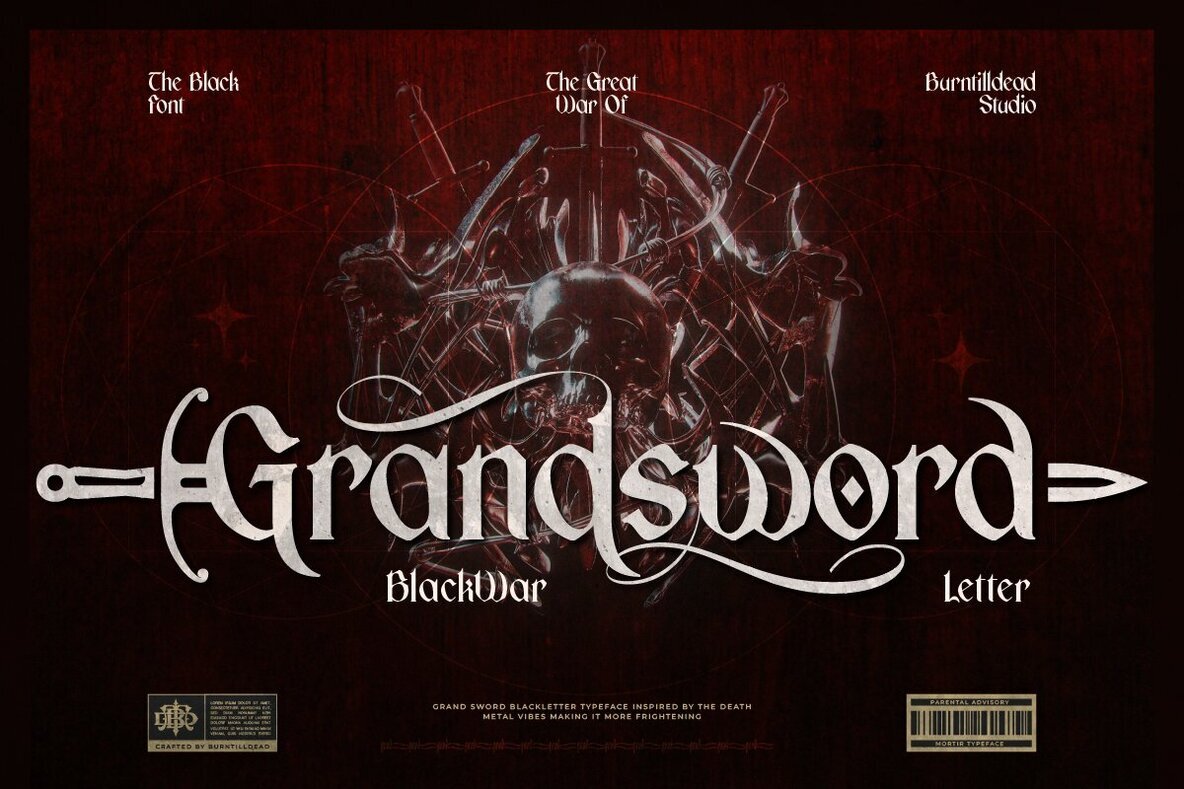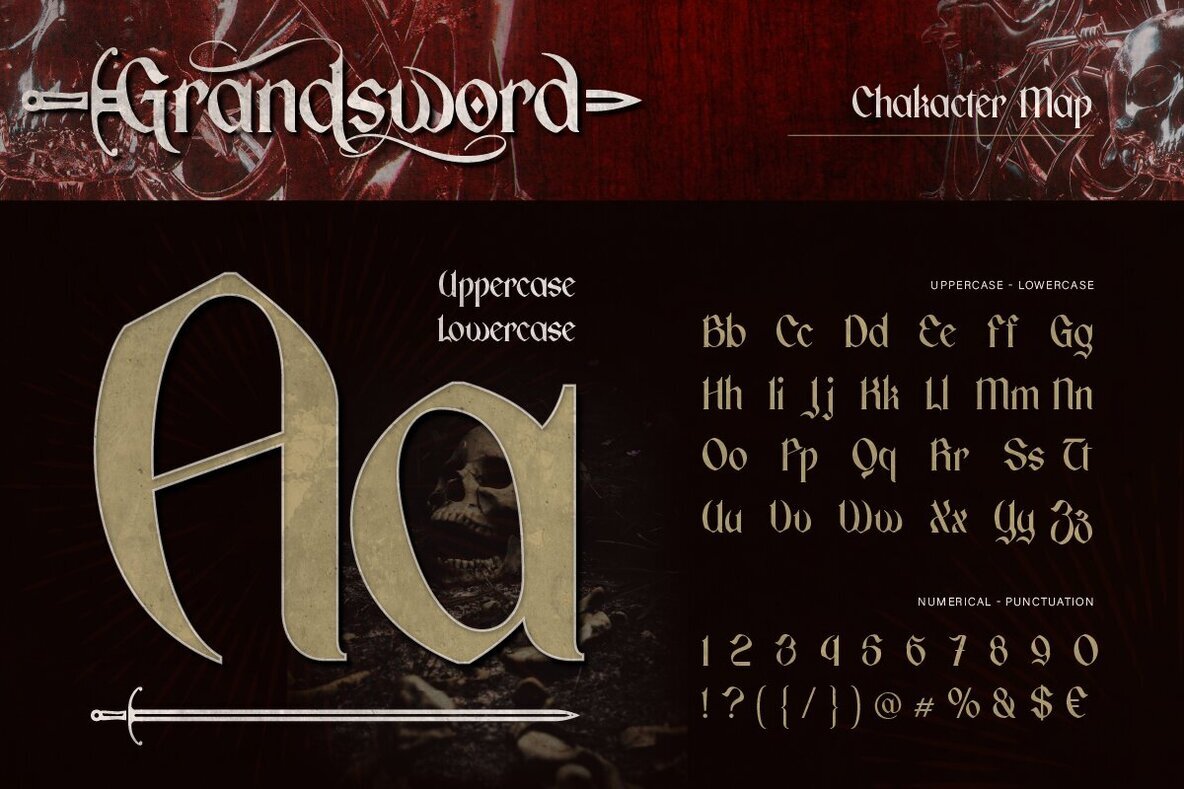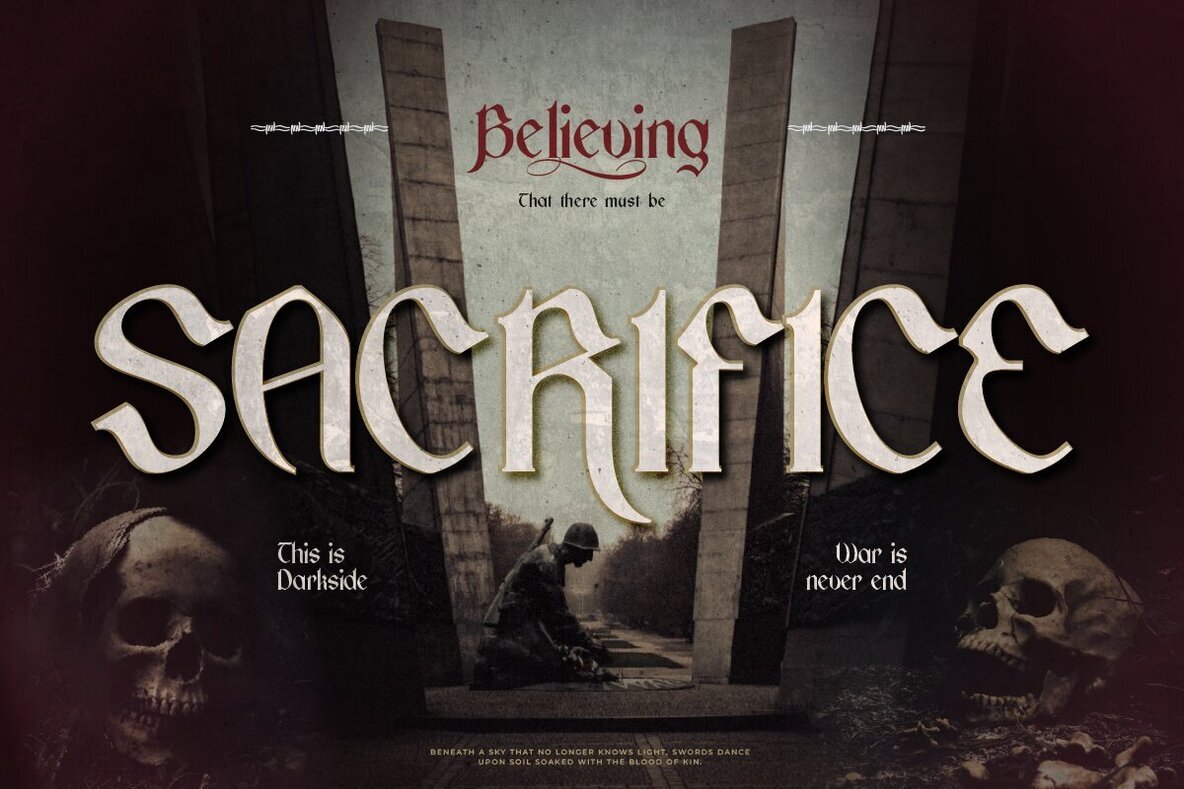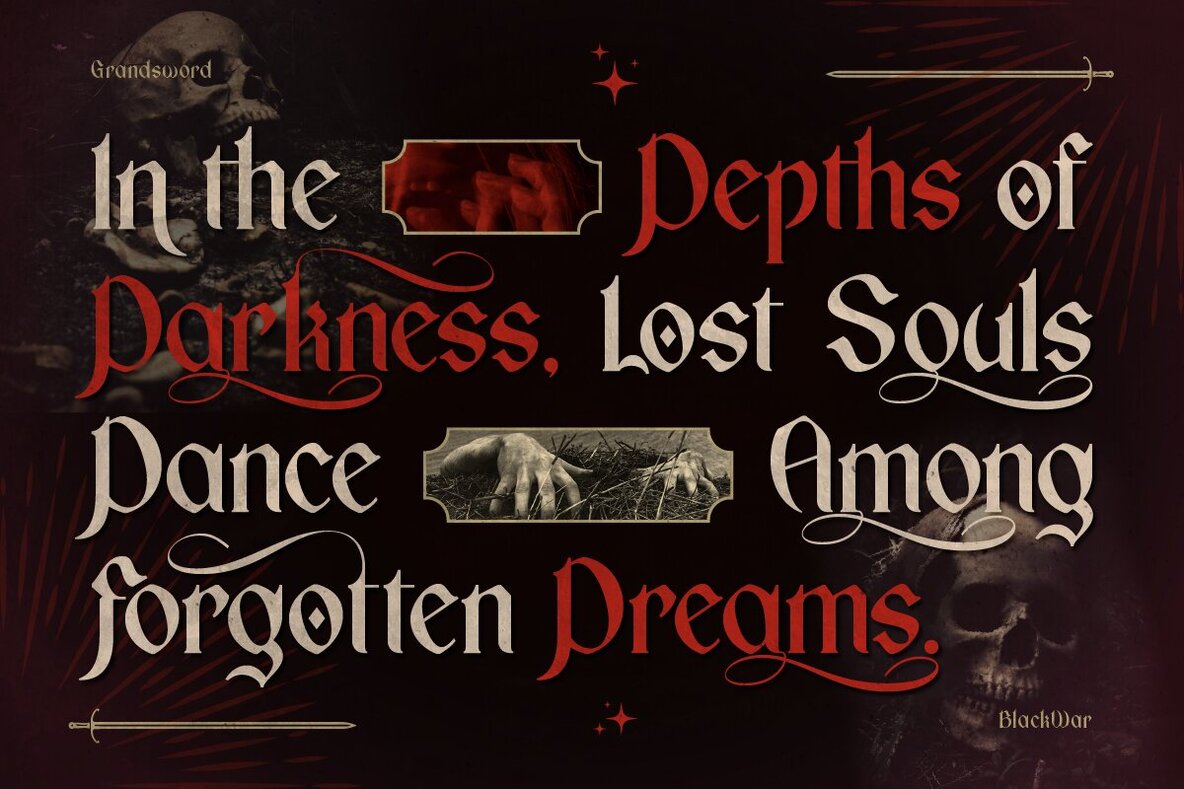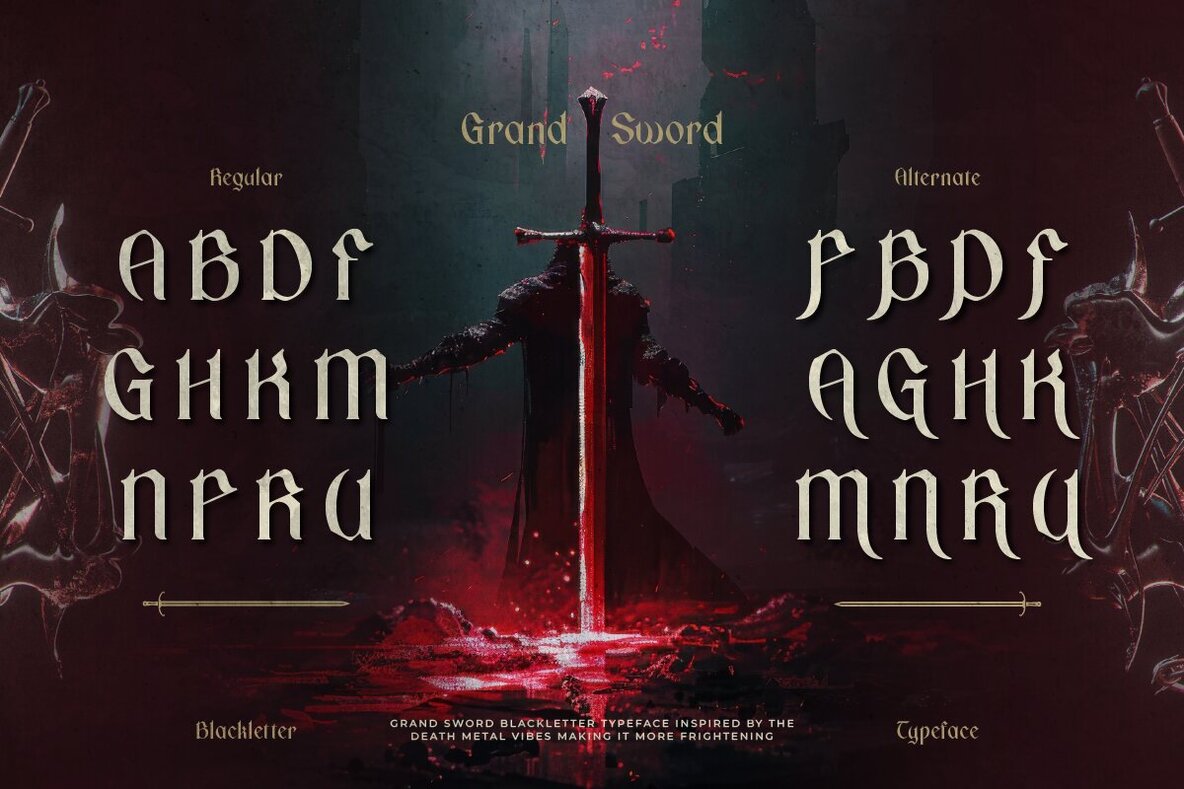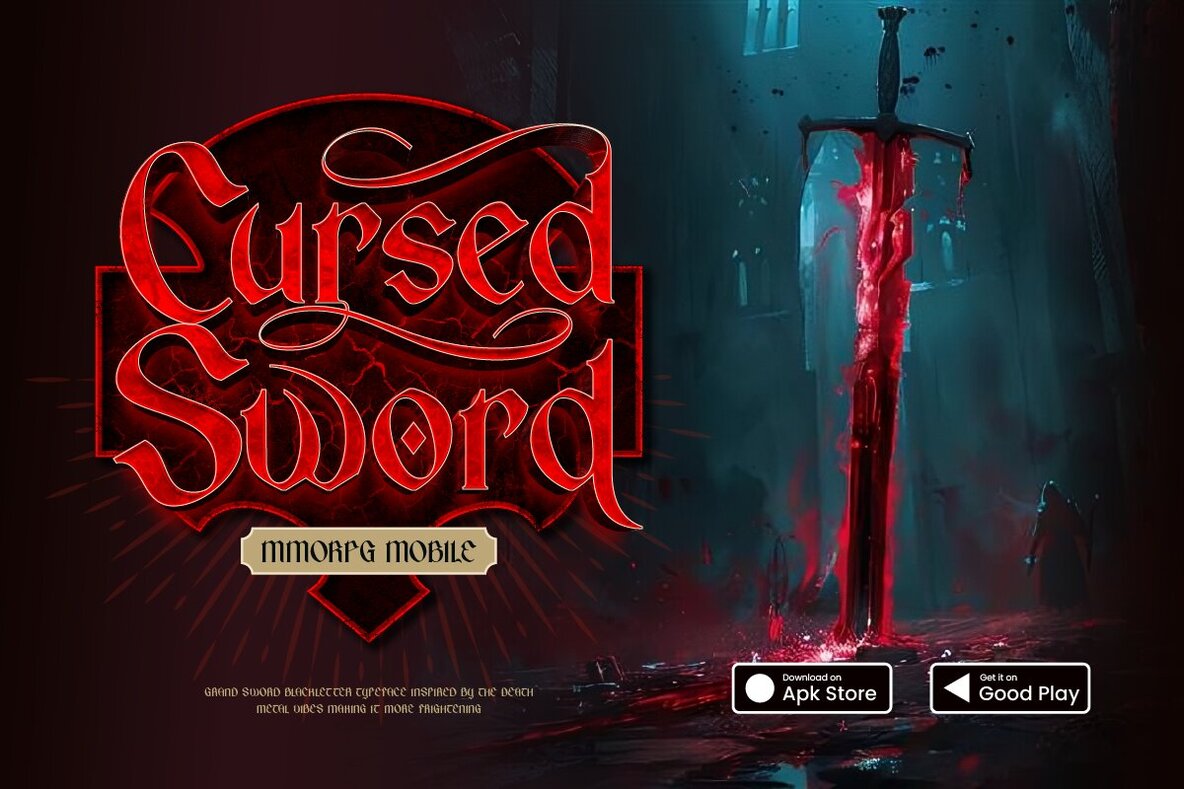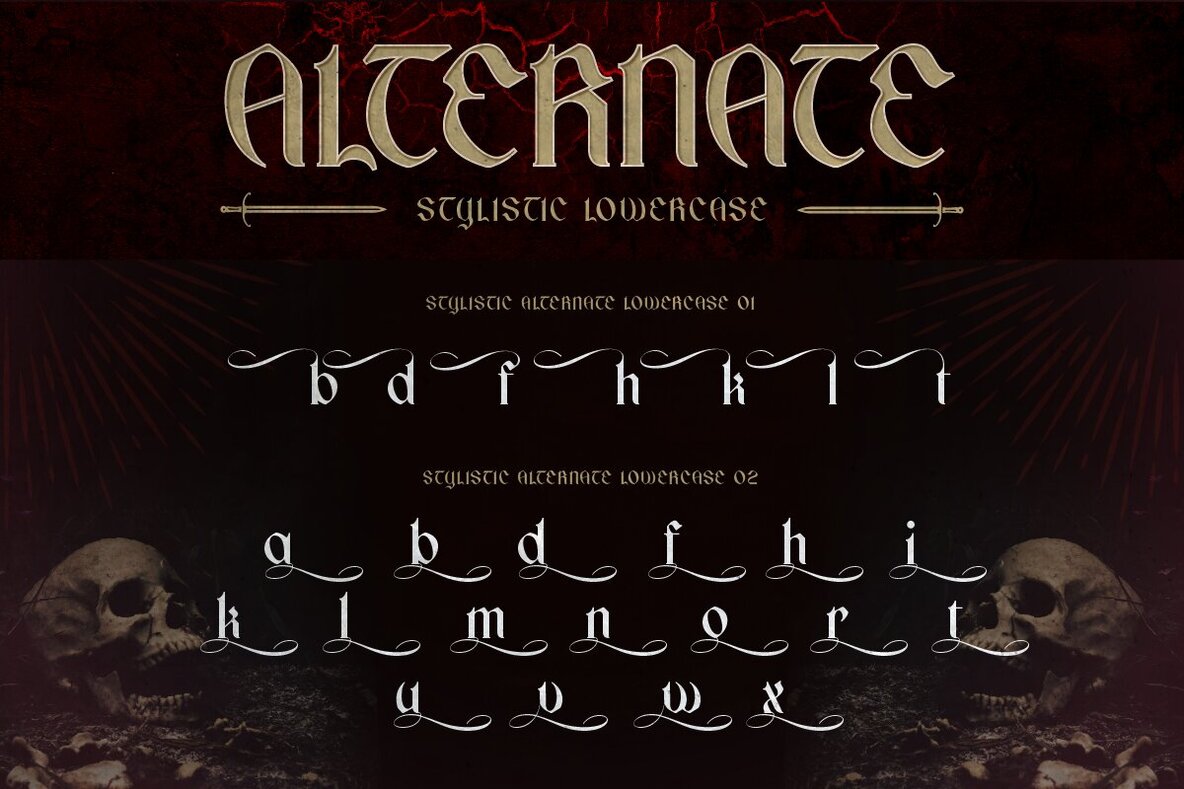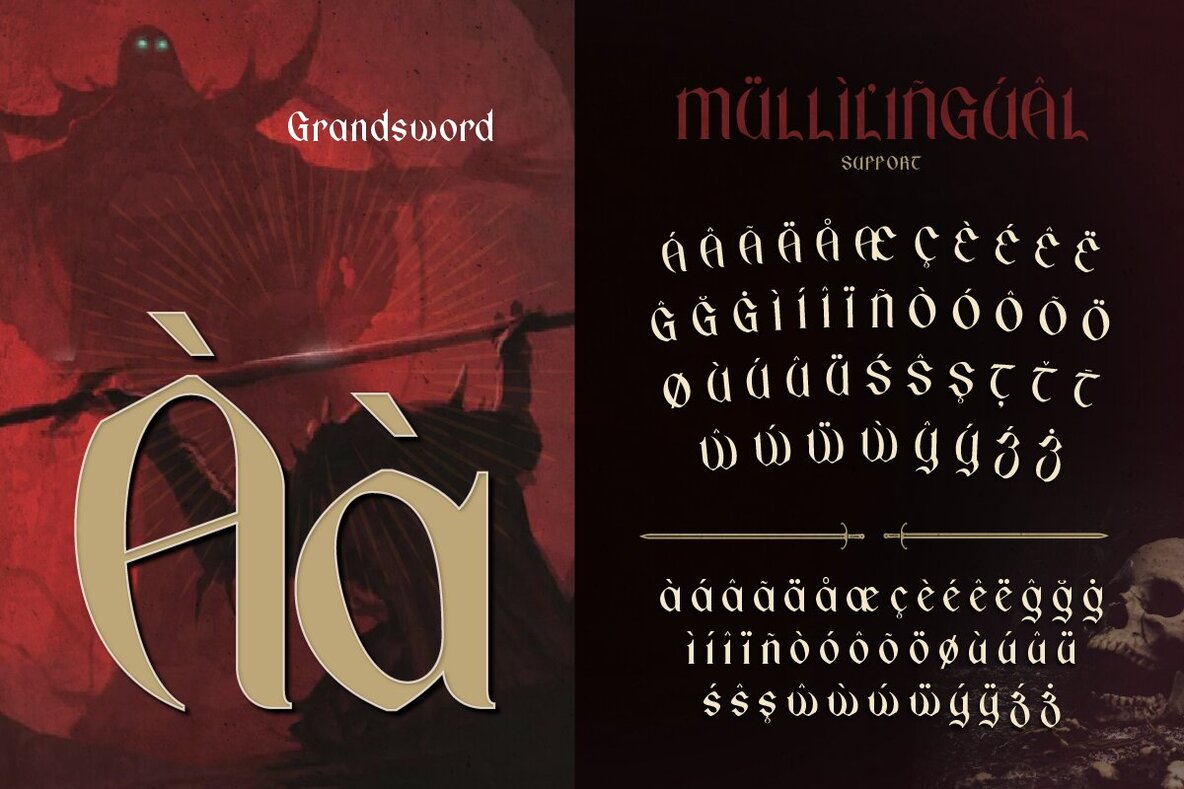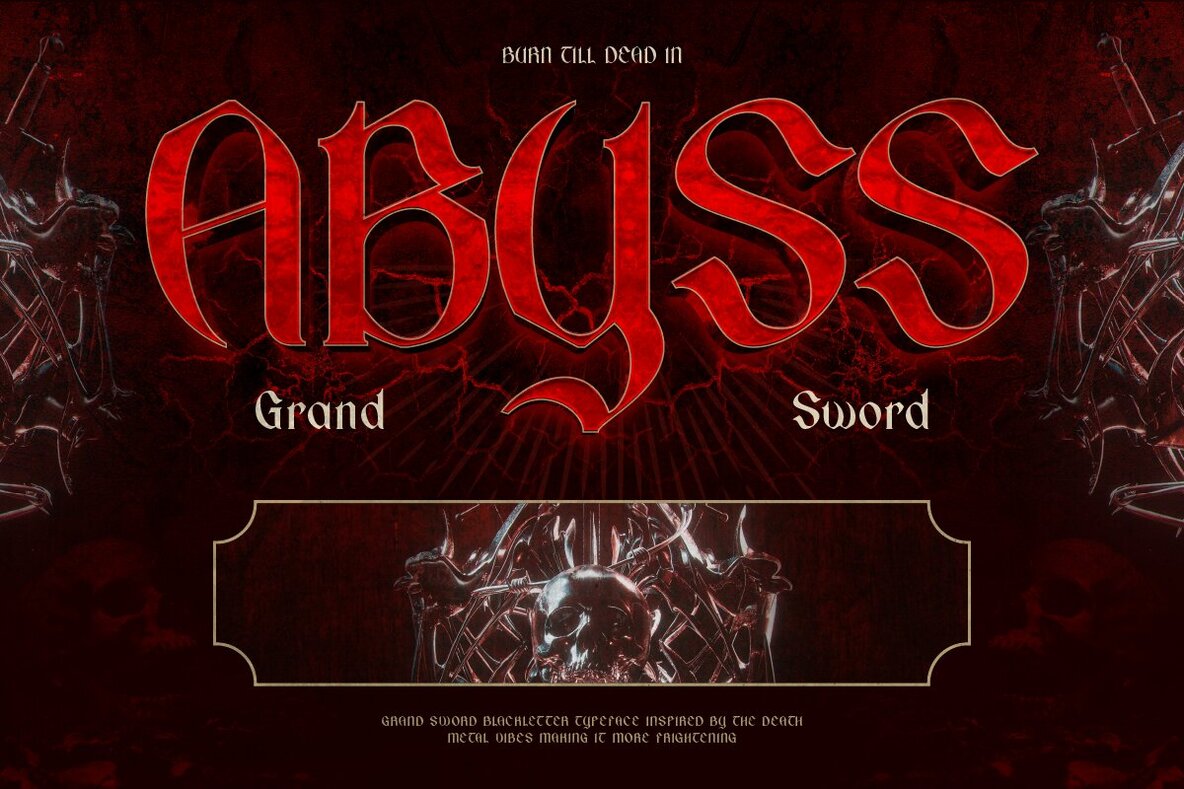
Grandsword Font
Grandsword Regular
Embrace the mystical allure of medieval warfare and the dark metal world with Grandsword, a striking blackletter font. Its sharp, gothic, and ornamental letterforms embody an intense and powerful atmosphere, making it ideal for those seeking an authentic and bold aesthetic. With impressive alternate characters, Grandsword delivers a timeless sense of classic style. This font is perfectly suited for diverse uses such as death metal album covers, dramatic posters, intricate tattoos, immersive games, or evocative war film titles. Grandsword adds an epic battle flair and dark beauty to any design, enhancing its impact with its gothic charm.Grandsword - A Medieval Blackletter Font